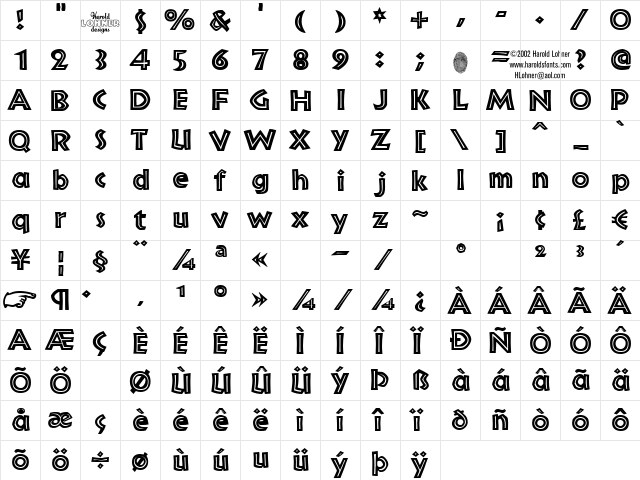
Bride InlineAlt Regular
| Copyright | Bride [of the Monster]Inline Alt computer font v1.0 02 Harold Lohner "  "https://www.haroldsfonts.com Lowercase letters are designed to work with Rudolf Koch's classic Neuland font. |
Design Context for Bride InlineAlt Typeface
Bride InlineAlt brings ornamental detail and strong personality to headlines and identities, where visual impact matters more than quiet functionality.
Font Pairing: Pair with a clean neutral sans-serif for body copy to let Bride InlineAlt's character lead without overwhelming the composition.
Pro Tip: Treat Bride InlineAlt as the centrepiece of your typographic hierarchy. One strong heading set in a decorative face can carry an entire layout.